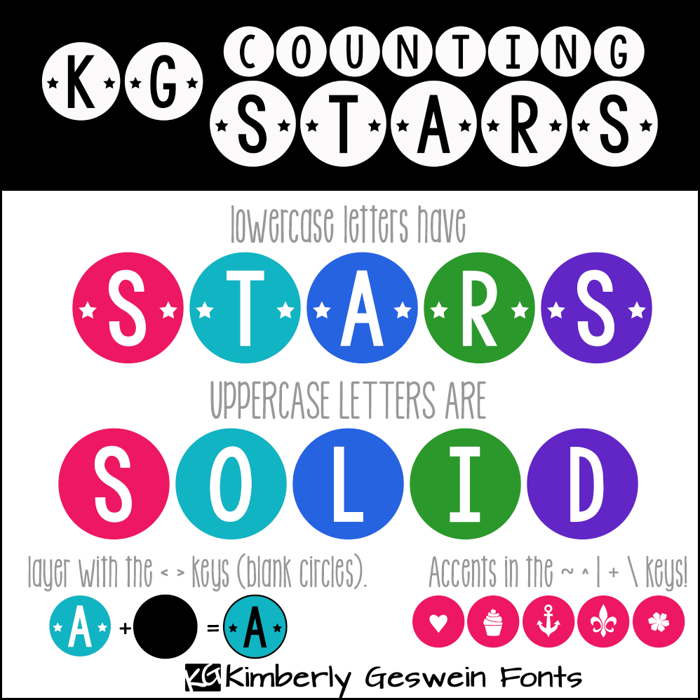
KG Counting Stars Font
The lowercase letters have stars- the uppercase do not. Mix and match as desired. :) The < and > keys are solid background circles.